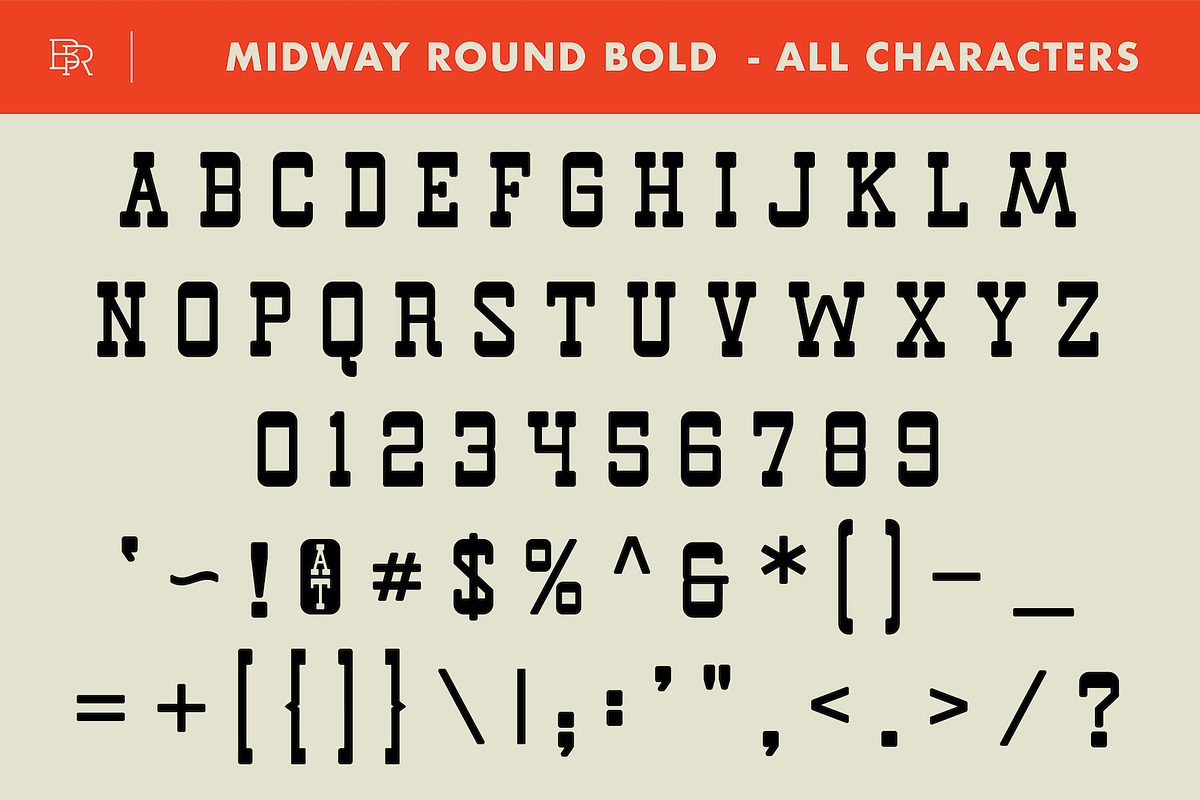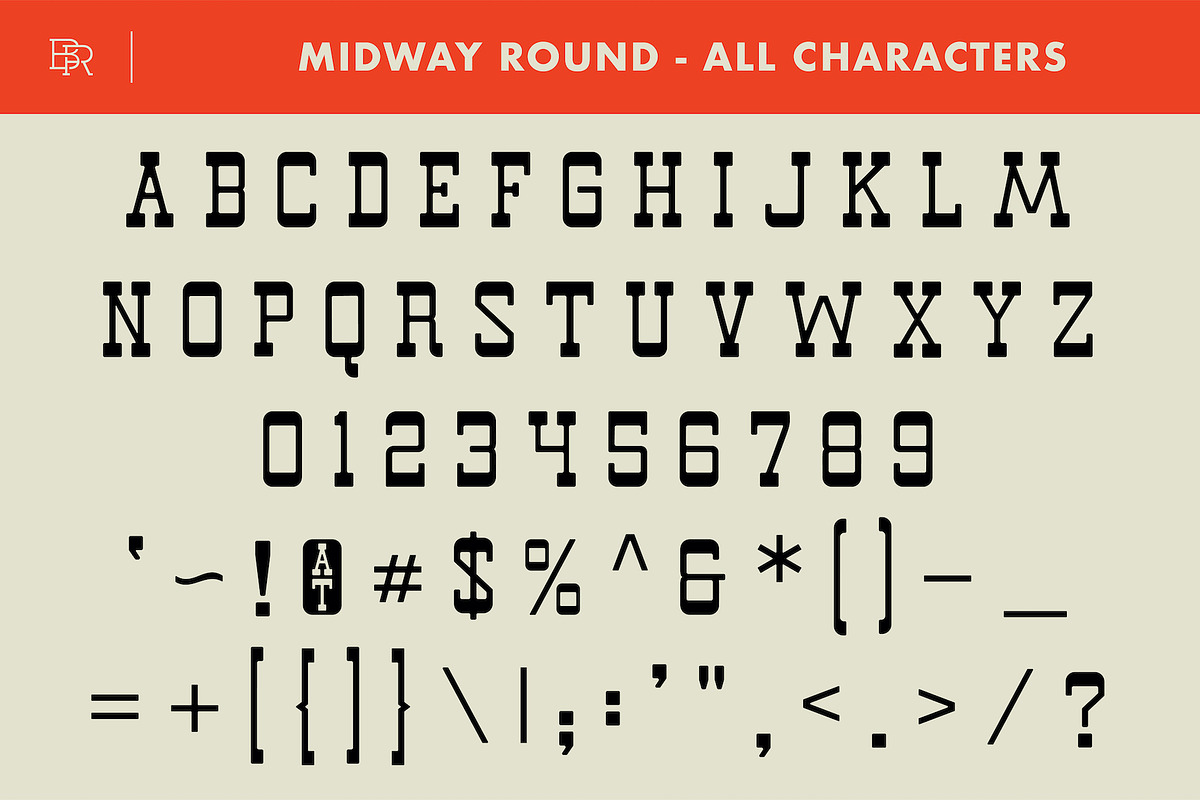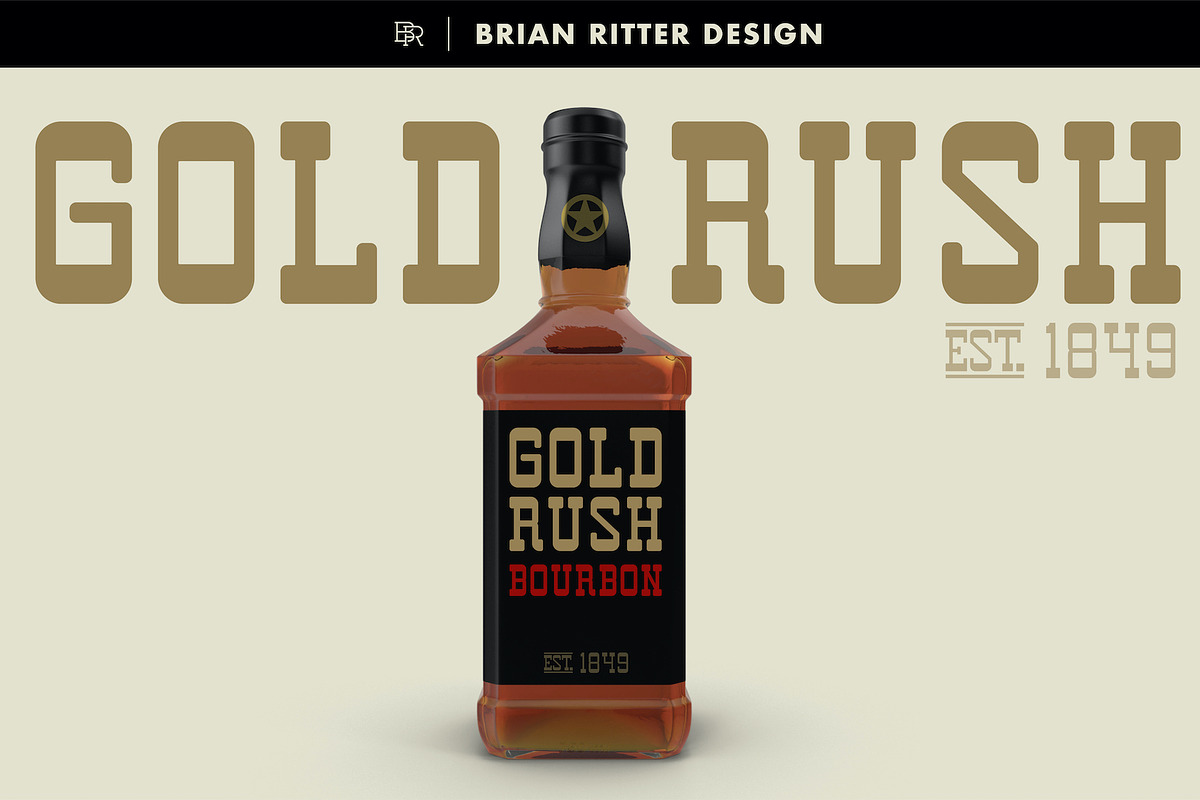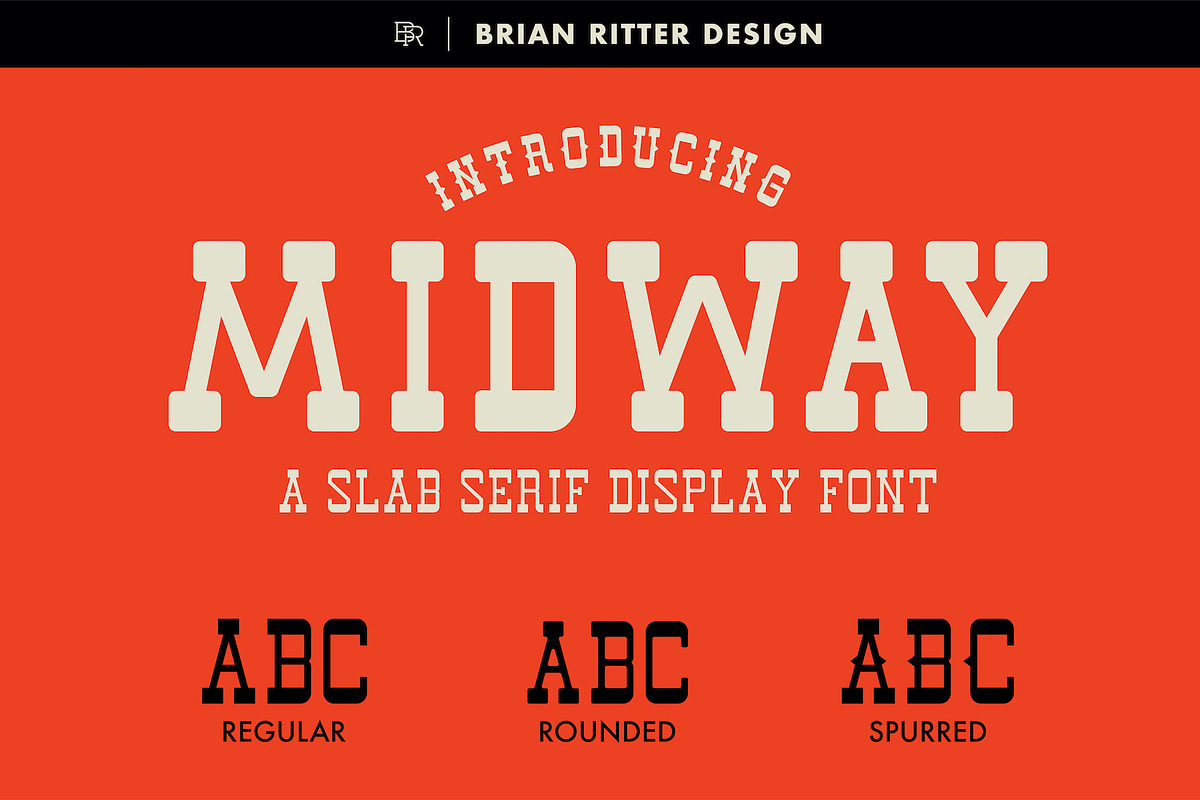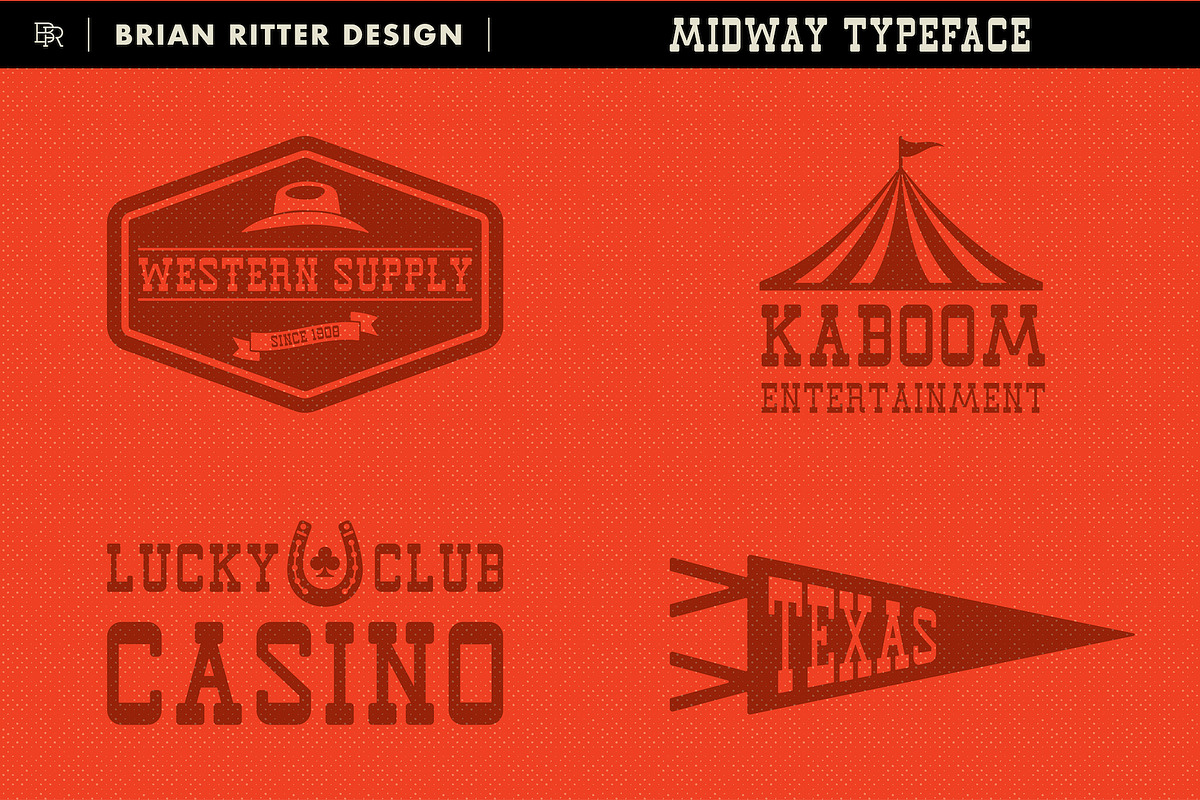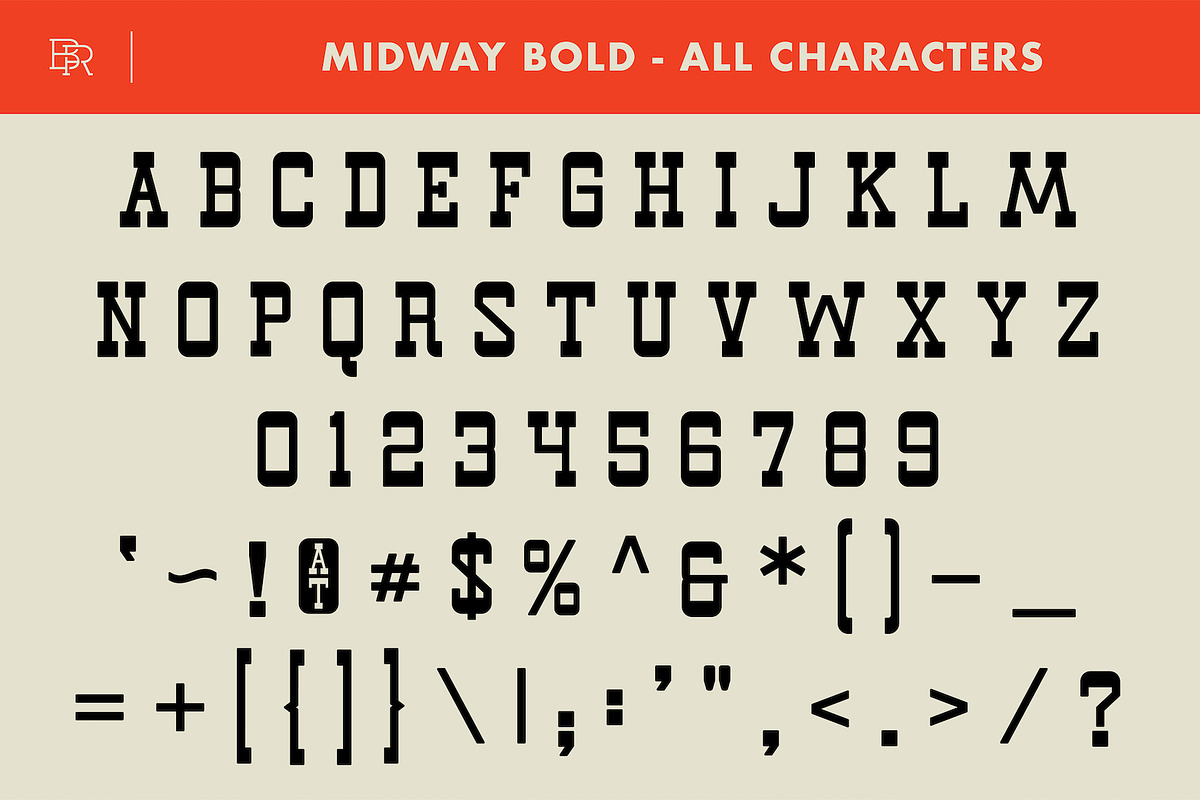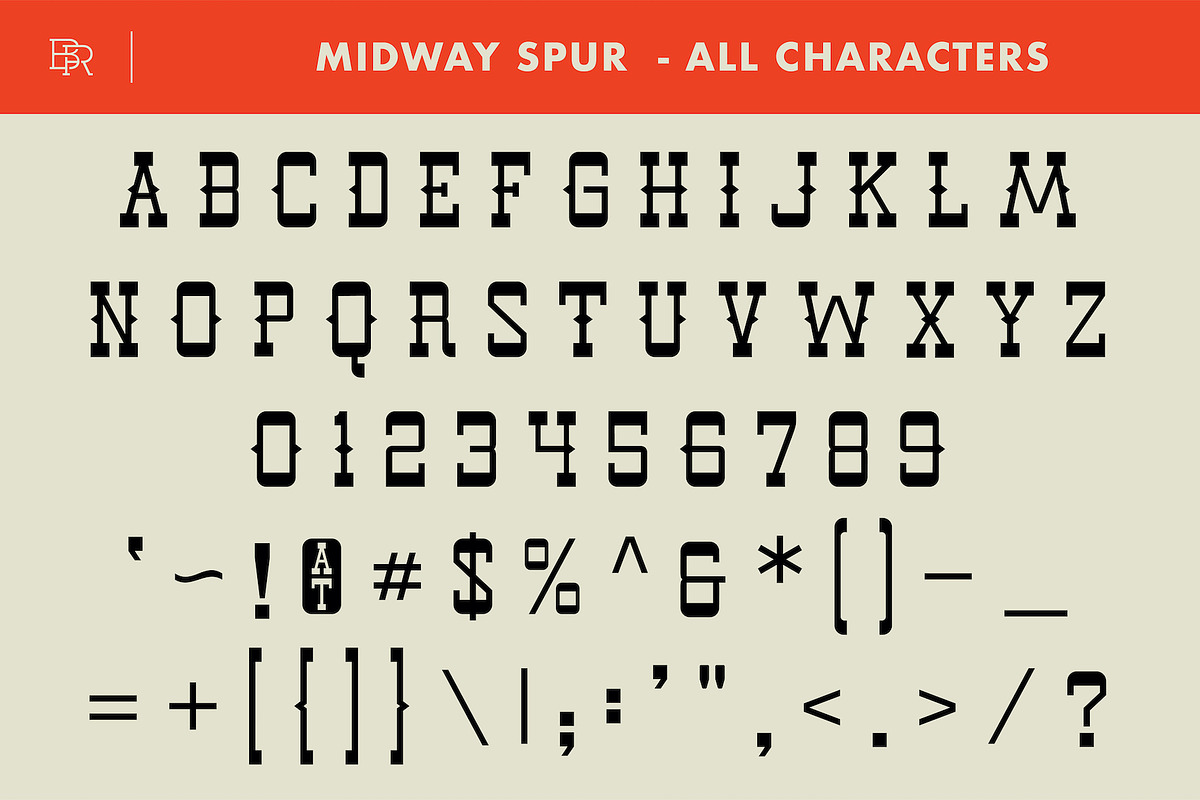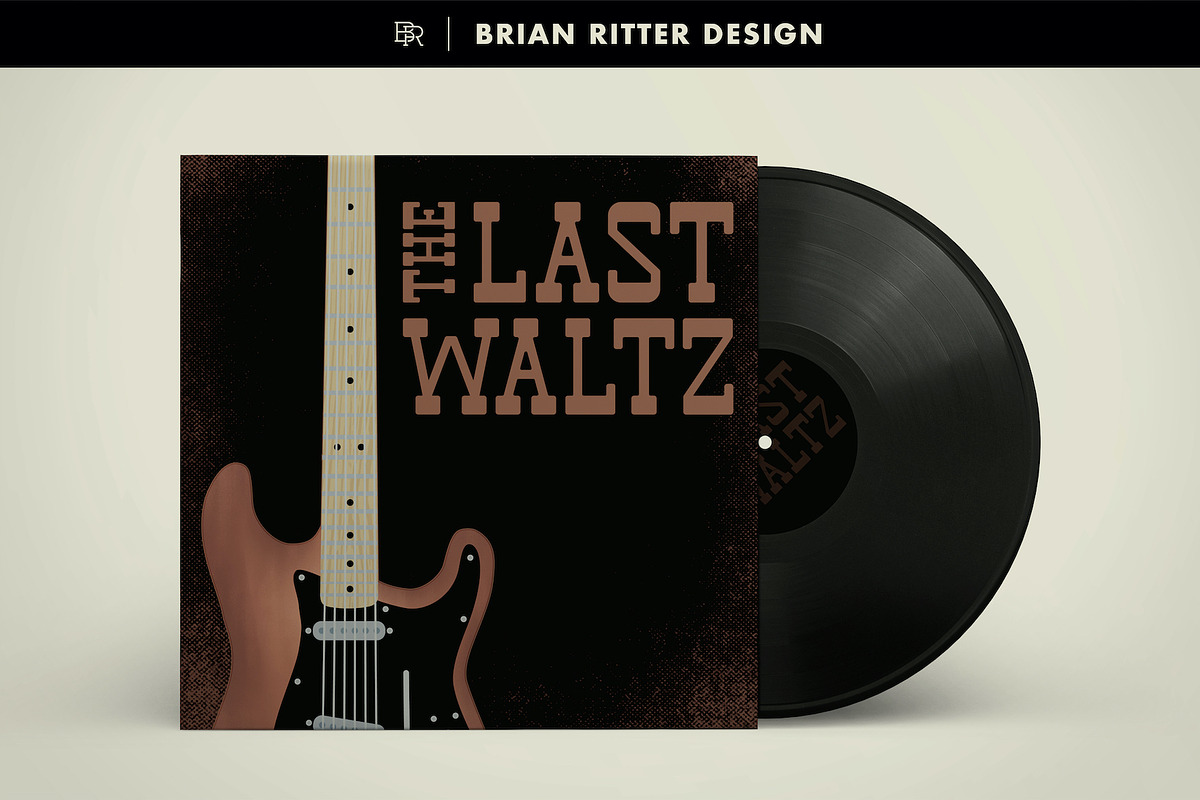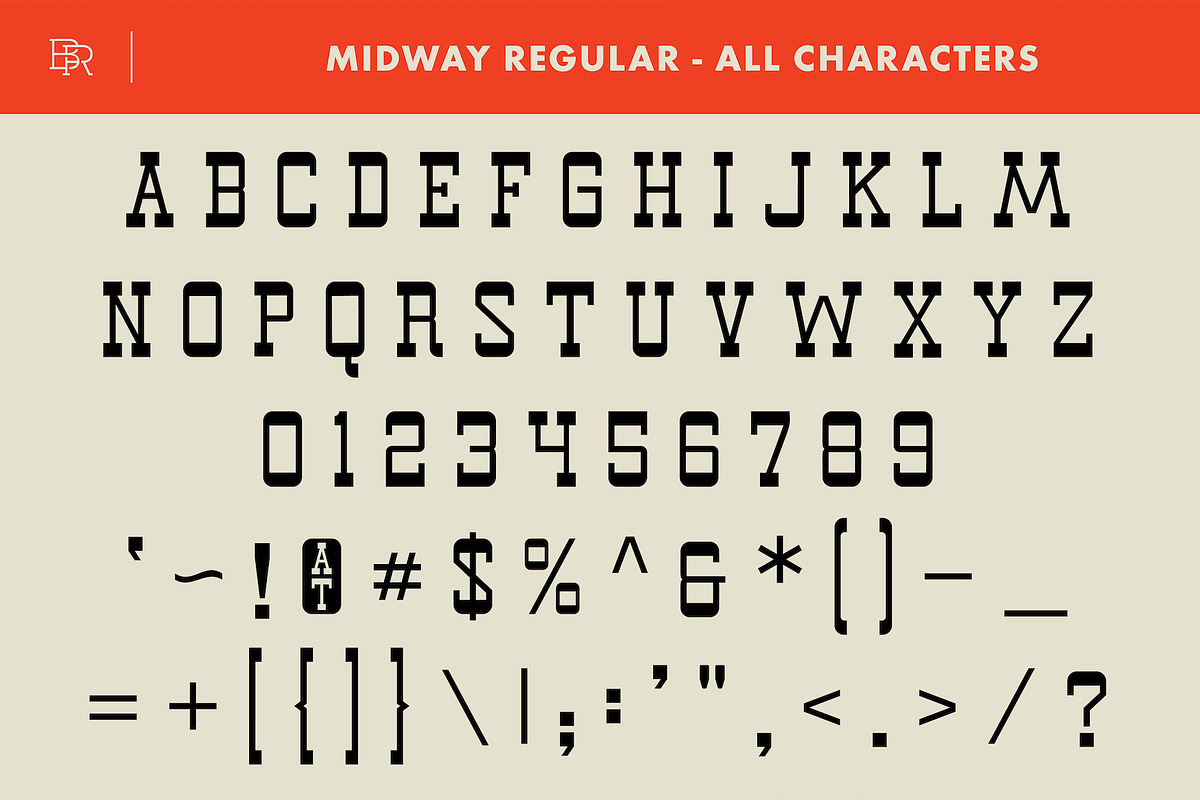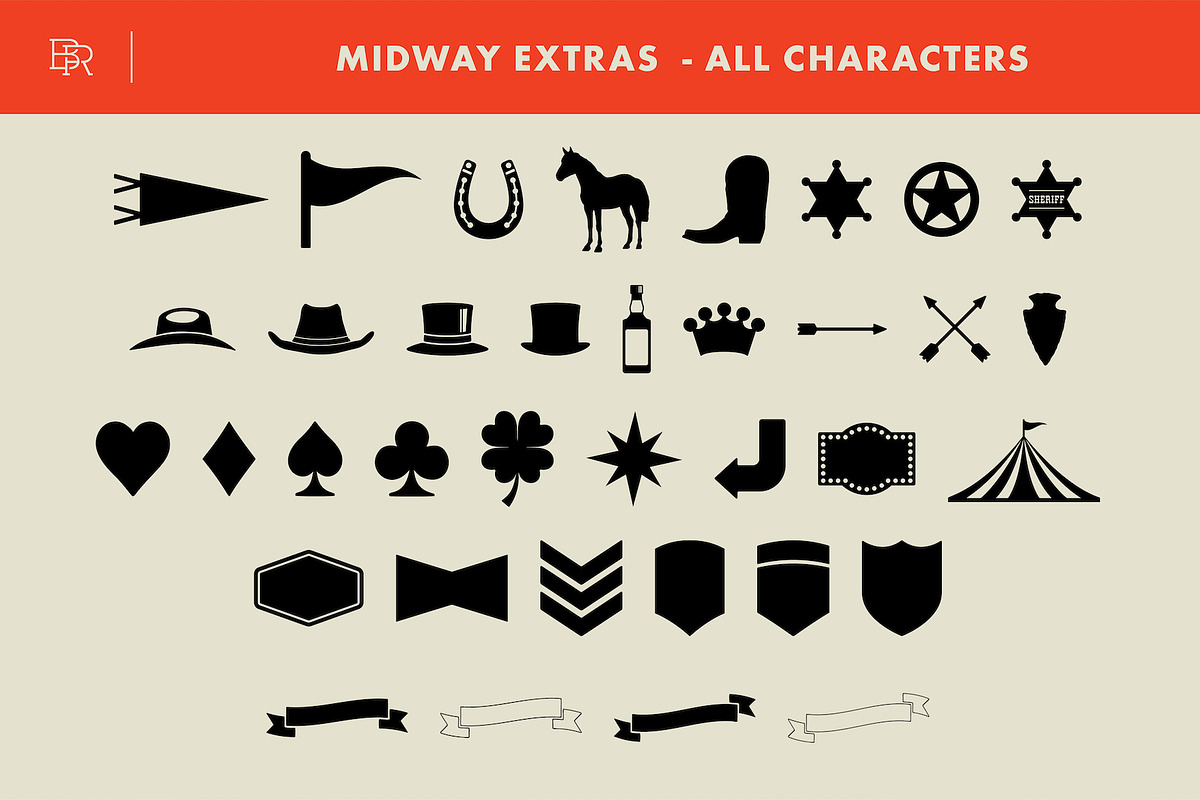
Midway - Slab Serif Font
Midway is a slab serif font inspired by the old west, the circus, and vintage wood typesetting. It's in OTF font format and includes a PDF guide of all characters.